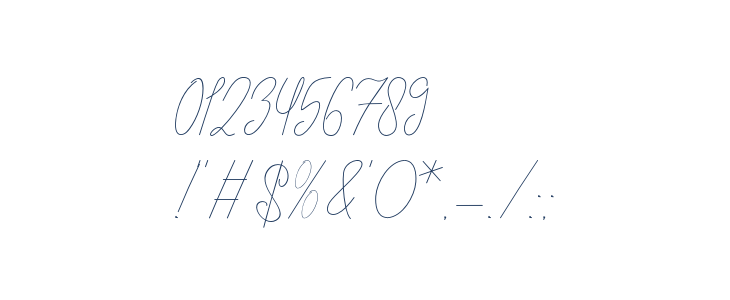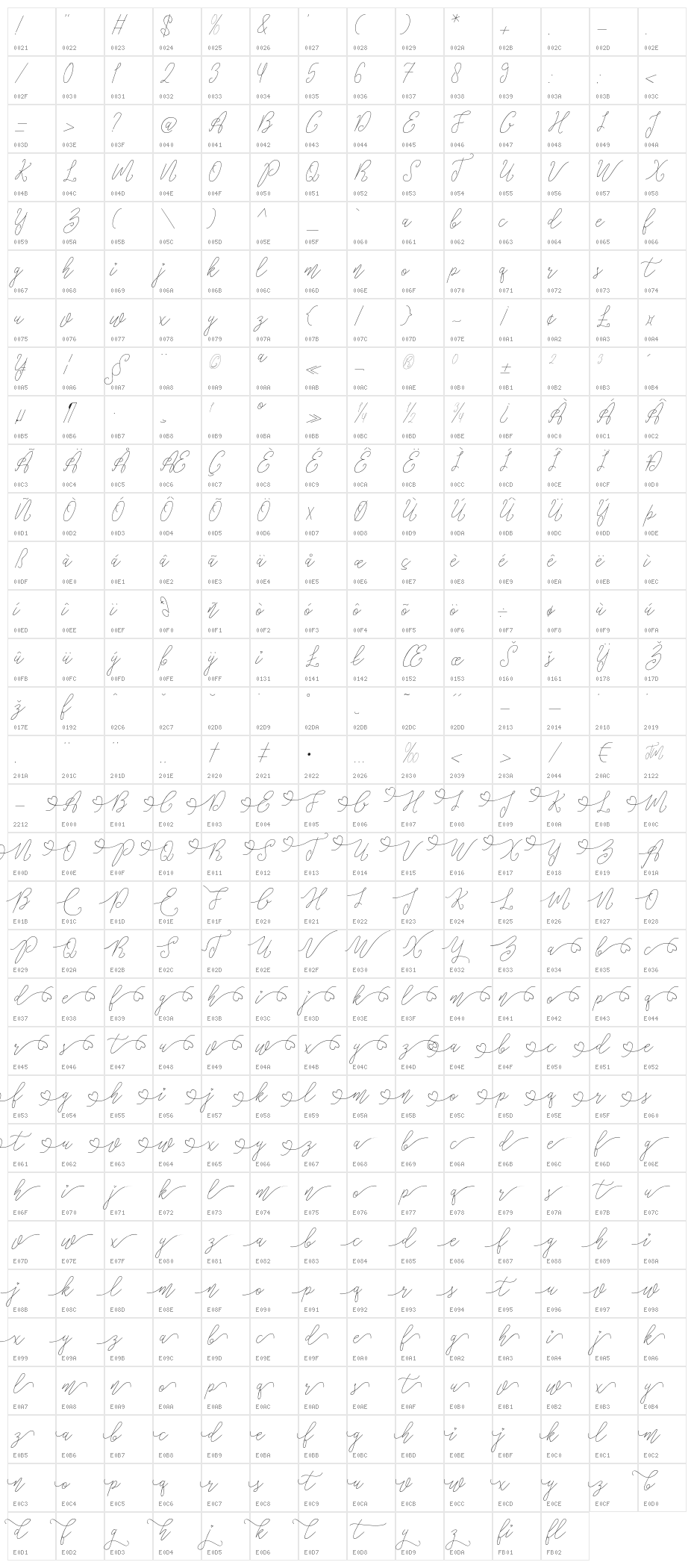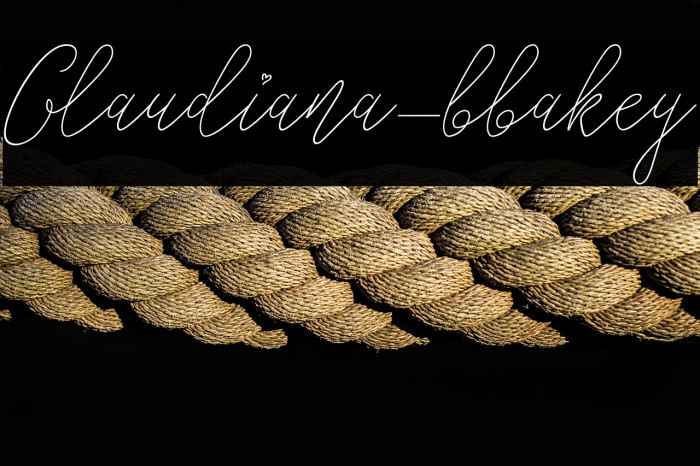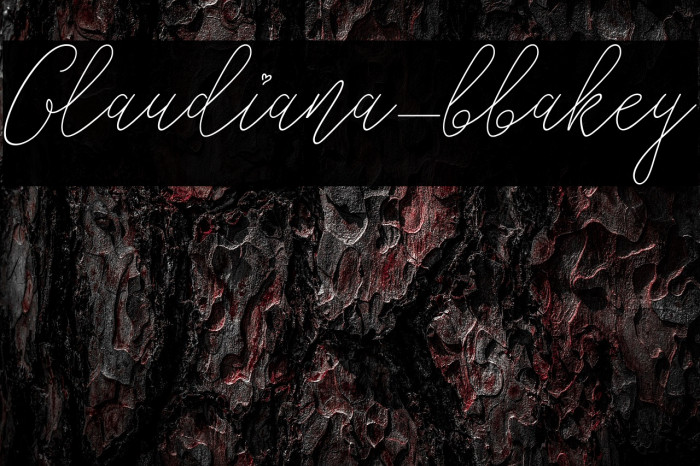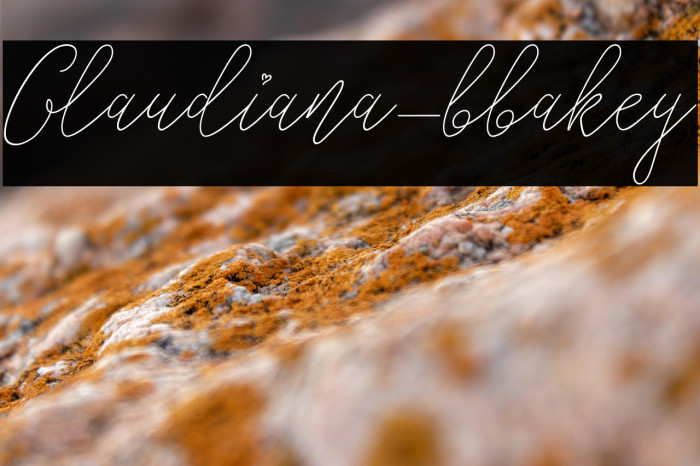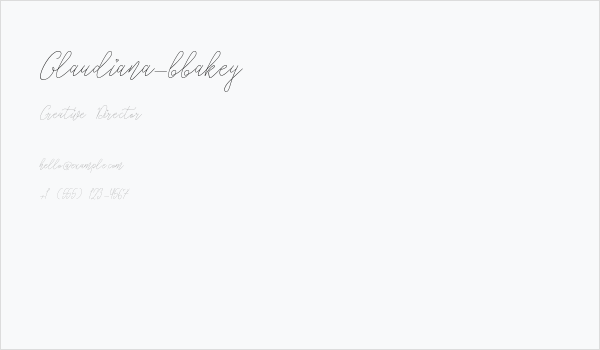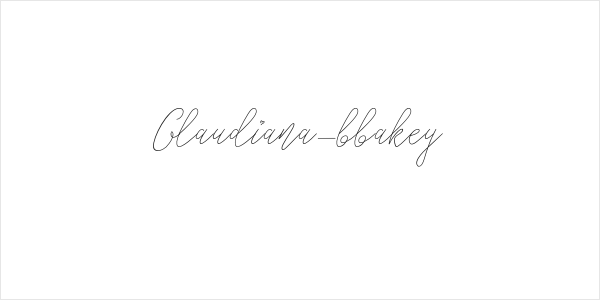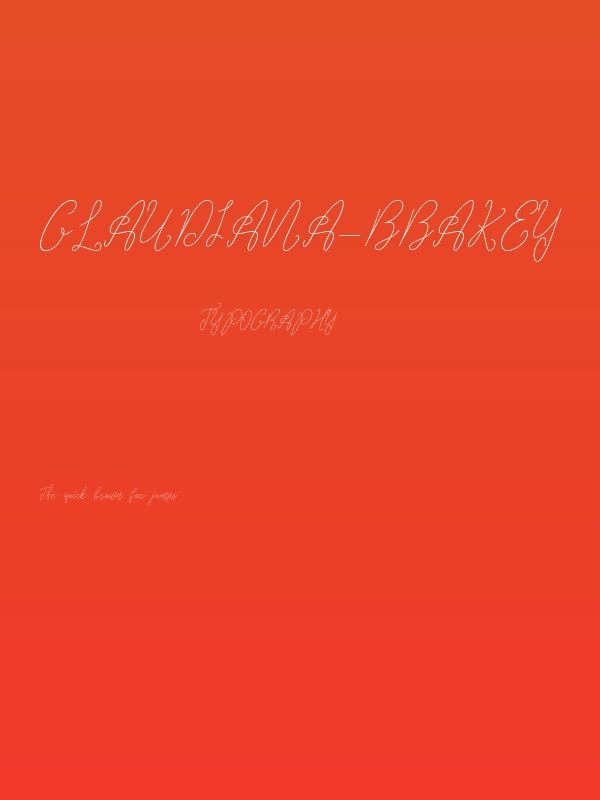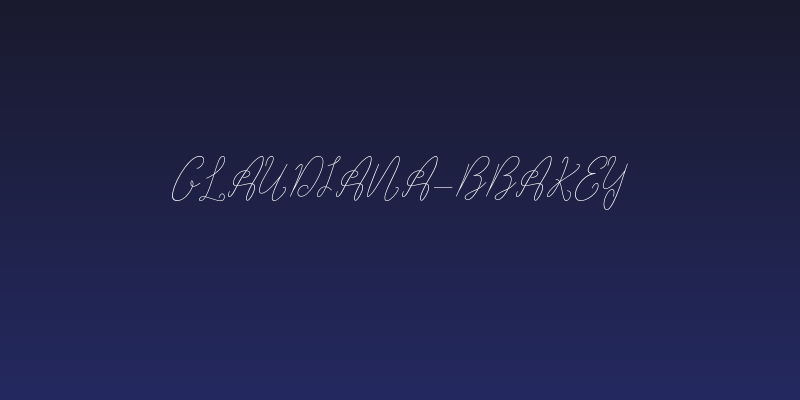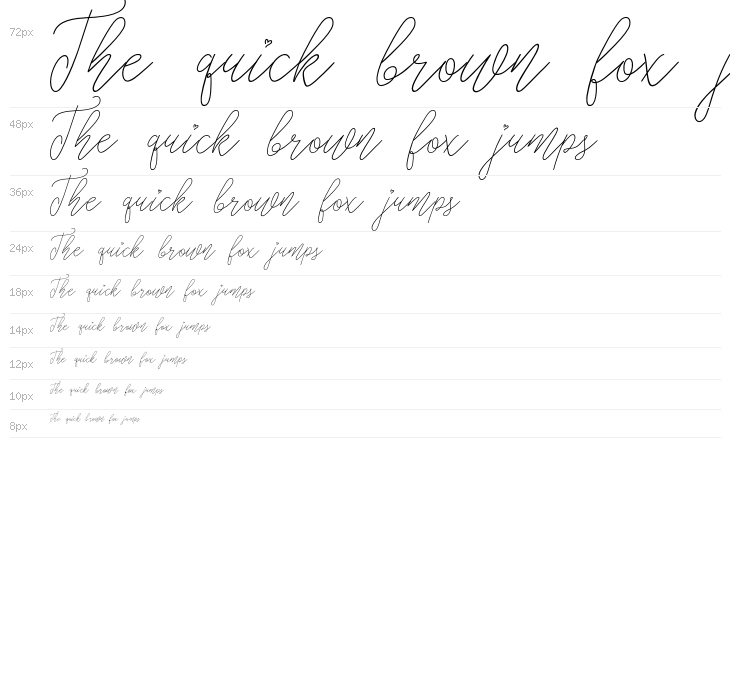
Glaudiana-bbakey Font
Glaudiana-bbakey Description
This elegant script font features a flowing, cursive style with delicate, elongated strokes that give it a graceful and sophisticated appearance. The uppercase letters are characterized by their tall, slender forms and sweeping curves, while the lowercase letters maintain a consistent fluidity, enhancing the font's overall harmony. The numerals are designed with a similar elegance, ensuring a cohesive look across all characters. Special characters are thoughtfully integrated, maintaining the font's refined aesthetic. This font's delicate lines and artistic flair make it ideal for projects that require a touch of elegance and sophistication.